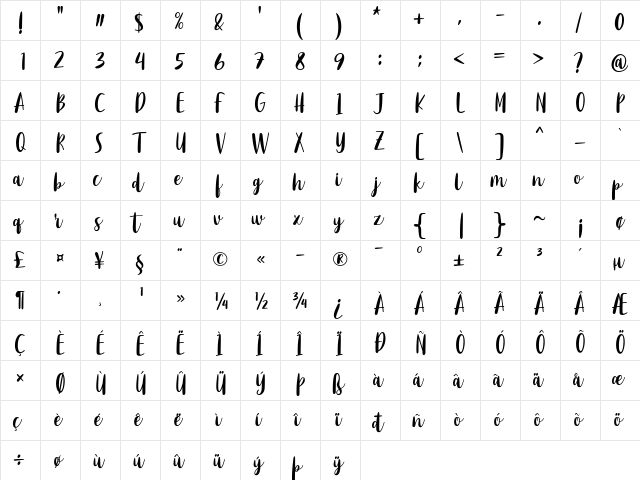
Purple River Regular
| Foundry | 7NTypes |
| Designer | Keithzo; Situjuh Nazara |
Design Context for Purple River Typeface
Purple River is a composed and adaptable typeface that performs quietly and consistently across a wide range of design contexts.